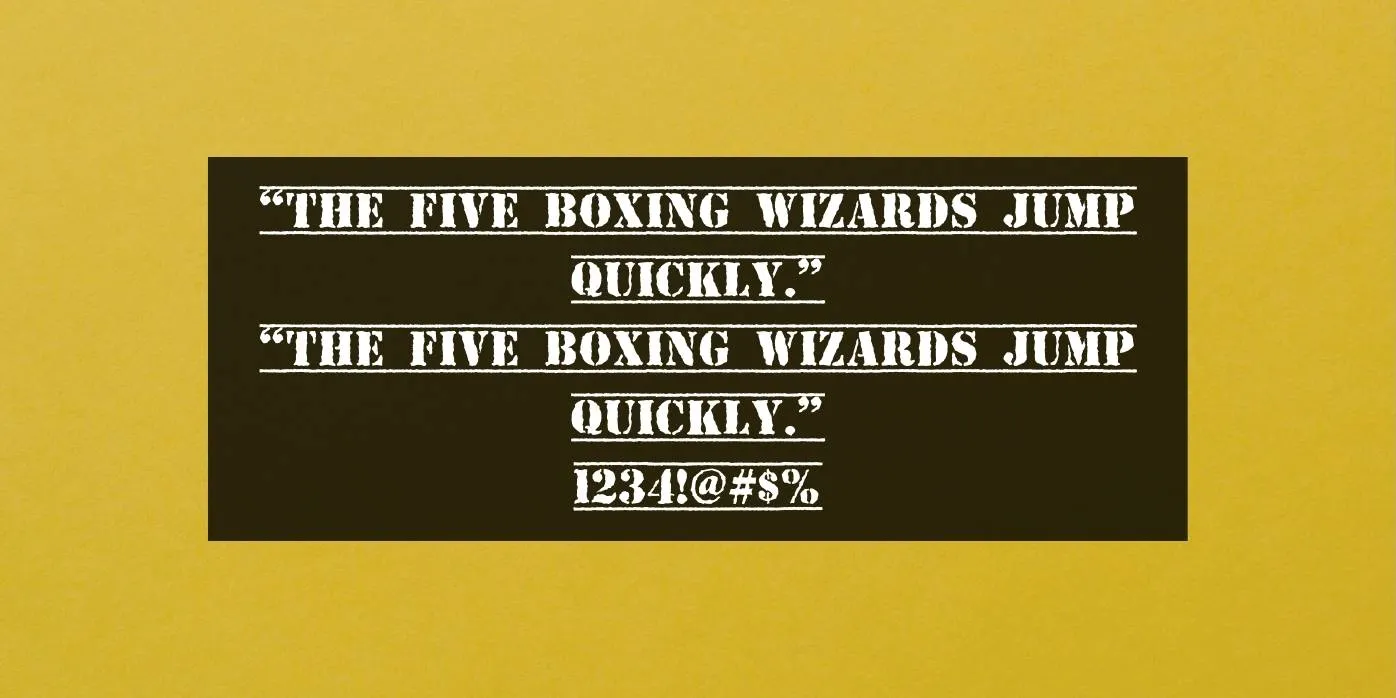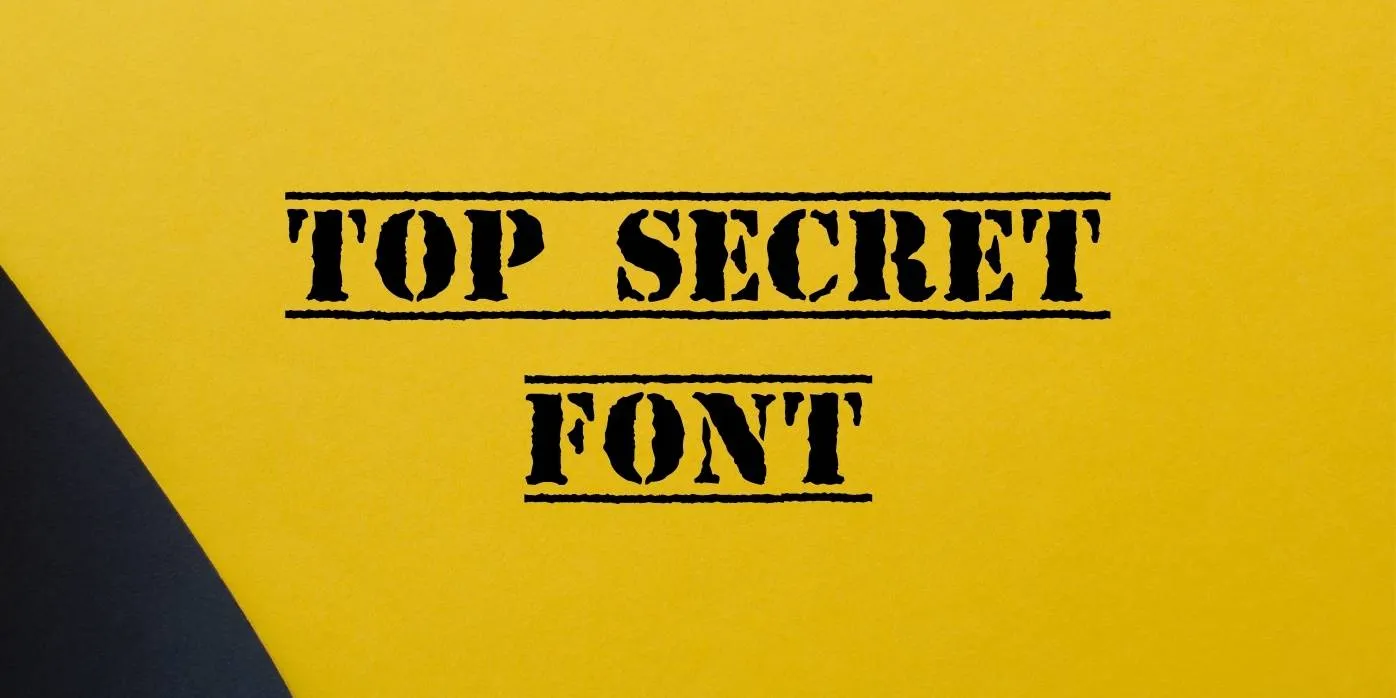
Top Secret Font
Top Secret Font is designed by this font family known as Magique Fonts. This family belongs to the slab serif typeface. You can use this font for both personal and commercial purposes. This family has neat and clean textures.
You can use this typeface for CSS and HTML. This classy typeface has two different styles, Regular and Display. The regular style is best suited for body text, while the Display style is more suitable for headlines and titles. To use Top Secret Font, you need to first download it from our website.
This gorgeous typeface has different distinctive Glyphs and characters. You can use it to design posters, headlines, and titles.  If you are looking for a unique and Eye-Catching font, then Top Secret Font is the perfect choice for your designs.